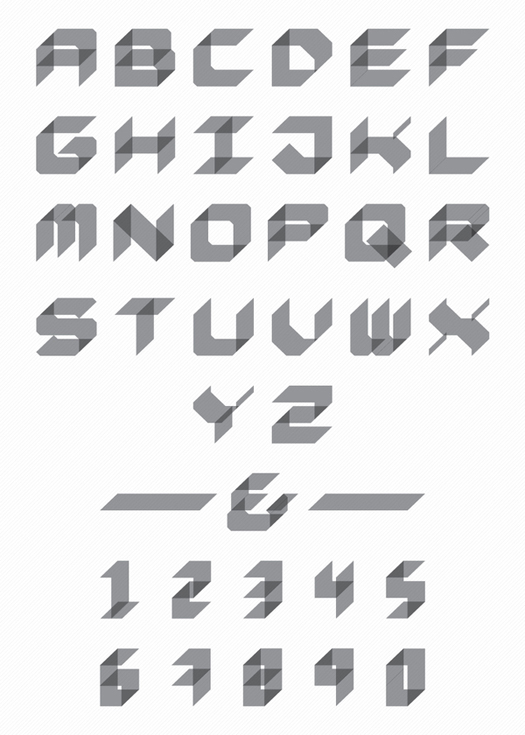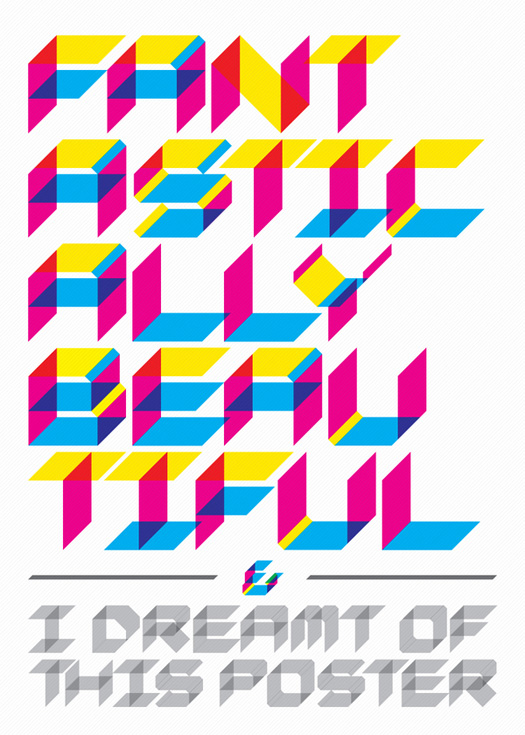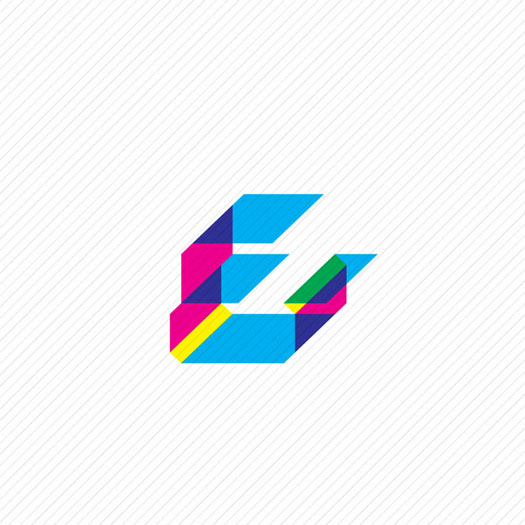
Fantastically
Fantastically Beautiful is actually a dream I had. In my dream I remember colours and shapes, and the thing that impacted me the most that morning, was the only two words in the poster: "Fantastically Beautiful". I needed to design that poster and materialize a vivid dream. Once I started, I found it imposible to use any type that could match that image in my head; I had to design a custom type.
The type is called fantastically and it was designed on something I remembered but couldn't express instantly, neither verbally or graphically. A couple of sketches and the whole type was born on one concept. It was never easy but it felt natural, I would say supernatural...
Designer: Juan Madrigal